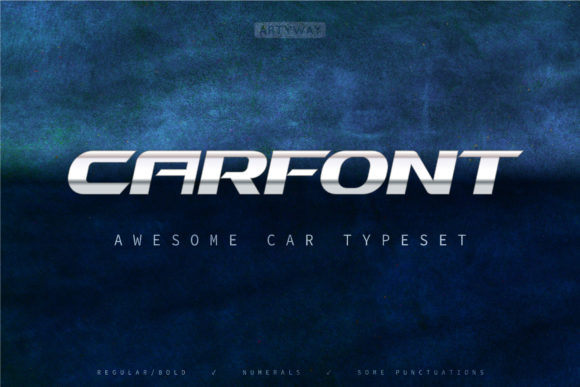
Introducing the Car Font, a bold and sporty display font designed to take your creative projects to new heights! Created by artyway, this font is perfect for anyone looking to add a touch of assertiveness and style to their designs. Whether you're creating cards, branding materials, labels, or anything else, the Car Font is the ideal choice.
With its strong and confident appearance, the Car Font is guaranteed to leave a lasting impression on your audience. Its bold and eye-catching design will grab attention and make your creations stand out from the crowd. This font is perfect for those looking to make a statement and create a memorable visual experience.
One of the key features of the Car Font is its versatility. It can be used in a wide range of projects, allowing you to explore your creativity and bring your ideas to life. Whether you're designing a board game app, crafting personalized cards, or creating a unique brand identity, the Car Font is here to help you achieve your vision.
Not only does the Car Font look stunning, but it also delivers exceptional readability. Each character is carefully crafted to ensure legibility, making it easy for your audience to engage with your content. Whether it's a headline, a paragraph, or a call-to-action, the Car Font will make sure your message is delivered with clarity and impact.
When you choose the Car Font, you're not just getting a font – you're getting a tool that will inspire and empower your creativity. Add it confidently to your favorite creations and watch as it transforms them into works of art. Let yourself be amazed by the outcome generated by this remarkable font.
In conclusion, the Car Font is the ultimate choice for anyone looking to make a statement with their designs. Its bold and sporty appearance, versatility, and exceptional readability make it a must-have for any creative project. So why wait? Take your designs to the next level with the Car Font and unlock a world of possibilities. Download it now and let your creativity soar!